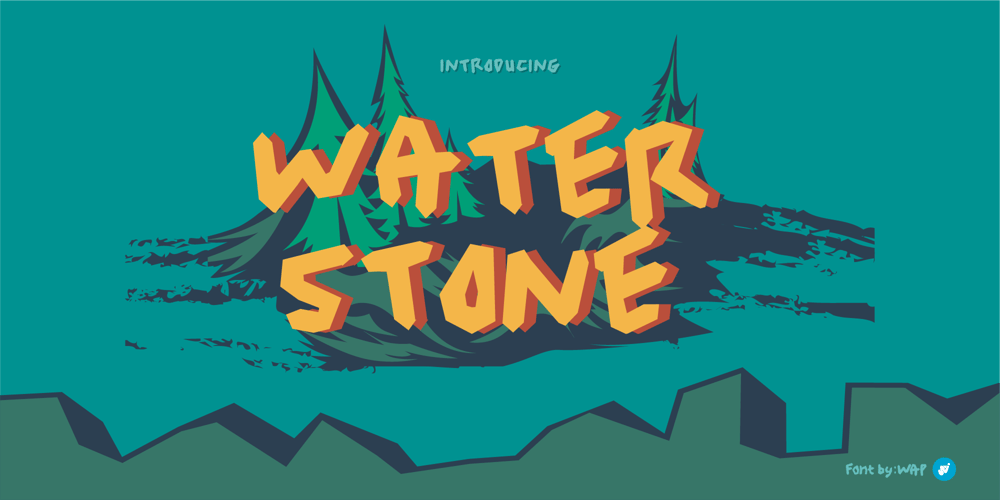
Water Stone
Water Stone font
Water Stone Font Family was designed by Wahyu Aji Prasetyo and published by WAP Type. Water Stone contains 1 styles and family package options. Wild Life is a unique modern and beautiful font with an incredibly adventurous feel. Use this gorgeous and unique display font to bring any DIY project to life!